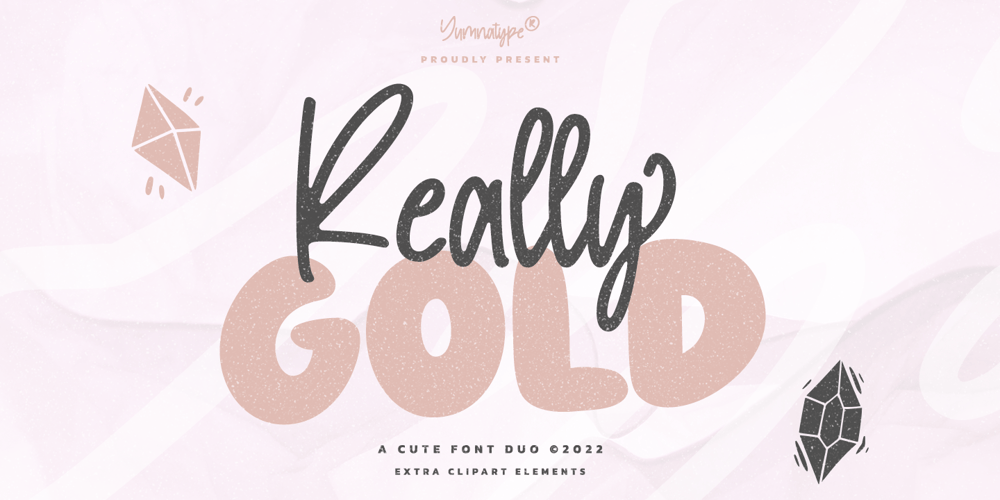
Really Gold Font Family was designed by Donis Miftahudin and published by Yumna Type. Really Gold contains 3 styles and family package options. If you have a dream to create an awesome designs or projects? Whatever your project it is-then we’ve got what you want.Really Gold, the gold combination between script and uppercase display font. The display font is fun, playful, readable and has a youthful touch that make it up to date while the script shows the simple but yet elegant style. As extras you will get 15 illustrations to maximize your design.Features: Ligatures Stylistic Sets Swashes Multilingual Supports Uppercase and lowercase PUA Encoded Numerals and Punctuation It is best to be apply on your branding, logos, social media quotes, stickers, posters, wall art, merchandise, social media, and many more. Get more inspiration about how to use it by seeing the font preview.Thank you for purchasing our fonts. If you have any further questions, don’t hesitate to contact us. Happy Designing.